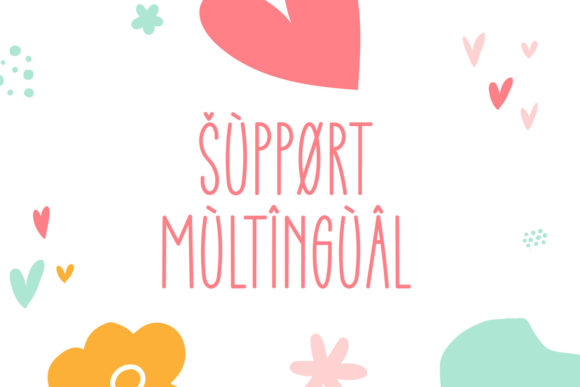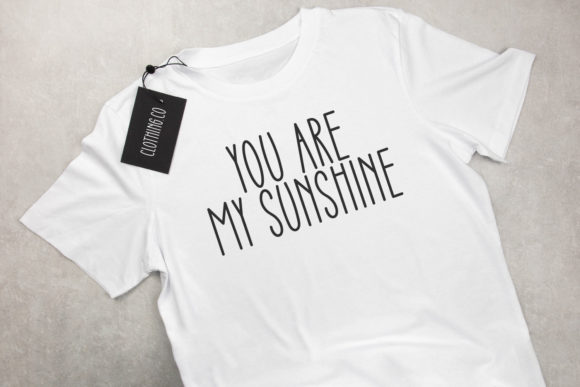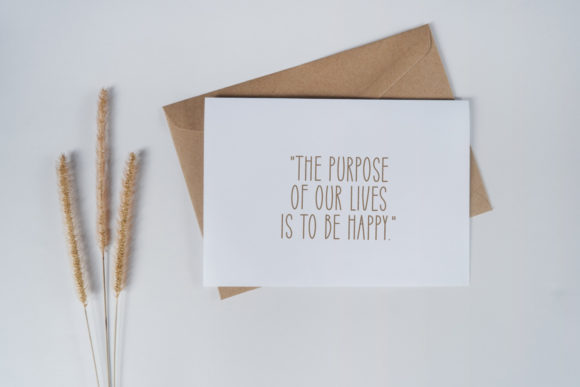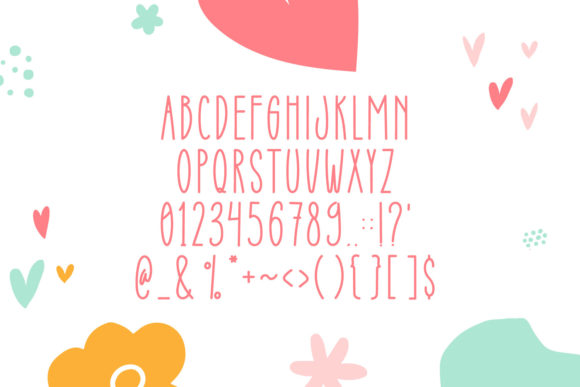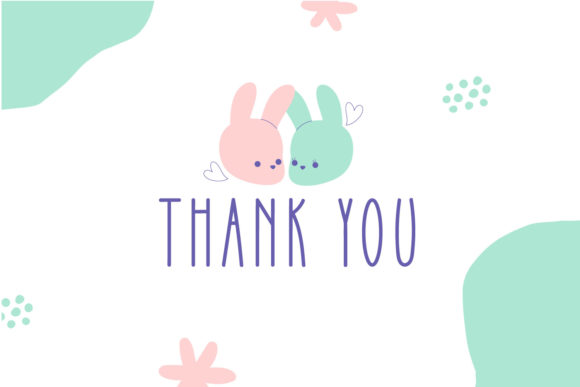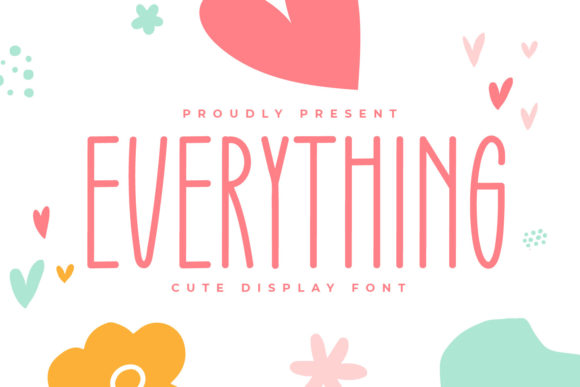
Introducing Everything Font: The Ultimate Handwritten Font for Designers and Crafters
Are you tired of using the same old fonts in your designs? Look no further! Everything Font is here to revolutionize your typography game. This cute, thin, and tall handwritten font is perfect for designers and crafters who want to add a personal touch to their creations. In this article, we’ll dive into the world of Everything Font and explore its features, benefits, and uses.
What is Everything Font?
Everything Font is a unique and elegant handwritten font that is sure to capture the hearts of designers and crafters alike. Its thin and tall letters exude a sense of sophistication and whimsy, making it perfect for a wide range of projects. Whether you’re designing a logo, creating a social media graphic, or crafting a handmade card, Everything Font is an incredibly versatile addition to your font library.
Key Features of Everything Font
- Cute and playful: Everything Font has a charming, hand-crafted feel that’s sure to add a touch of personality to your designs.
- Thin and tall: The font’s slender letters make it perfect for creating elegant and sophisticated designs.
- Handwritten: The font’s handwritten style gives it a unique and organic feel that’s perfect for adding a personal touch to your creations.
- Versatile: Everything Font can be used for a wide range of projects, from logos and branding to social media graphics and handmade crafts.
Benefits of Using Everything Font
So, why should you choose Everything Font for your next project? Here are just a few benefits of using this amazing font:
- Elevate your designs: Everything Font has the potential to take your designs to the next level, adding a touch of elegance and sophistication to your creations.
- Stand out from the crowd: With its unique and playful style, Everything Font is sure to help your designs stand out from the crowd.
- Easy to use: This font is incredibly easy to use, making it perfect for designers and crafters of all skill levels.
- Time-saving: With Everything Font, you can create professional-looking designs in no time, saving you time and effort.
Uses for Everything Font
So, what can you use Everything Font for? The possibilities are endless! Here are just a few ideas to get you started:
- Logos and branding: Use Everything Font to create a unique and memorable logo for your business or brand.
- Social media graphics: Add a touch of personality to your social media graphics with Everything Font.
- Handmade crafts: Use Everything Font to add a personal touch to your handmade crafts, such as cards, gift tags, and scrapbook pages.
- Wedding and event planning: Everything Font is perfect for creating beautiful wedding invitations, party decorations, and other event materials.
Tips for Using Everything Font
Here are a few tips for getting the most out of Everything Font:
- Experiment with different sizes: Everything Font looks great in a variety of sizes, so don’t be afraid to experiment and find the perfect size for your project.
- Pair with other fonts: Try pairing Everything Font with other fonts to create a unique and interesting look.
- Use it sparingly: While Everything Font is a beautiful font, it can be overwhelming if used too much. Use it sparingly to add a touch of elegance to your designs.
In conclusion, Everything Font is a must-have for designers and crafters who want to add a personal touch to their creations. With its cute, thin, and tall handwritten style, this font is perfect for a wide range of projects. Whether you’re designing a logo, creating a social media graphic, or crafting a handmade card, Everything Font is an incredibly versatile addition to your font library. So why wait? Download Everything Font today and start elevating your designs!